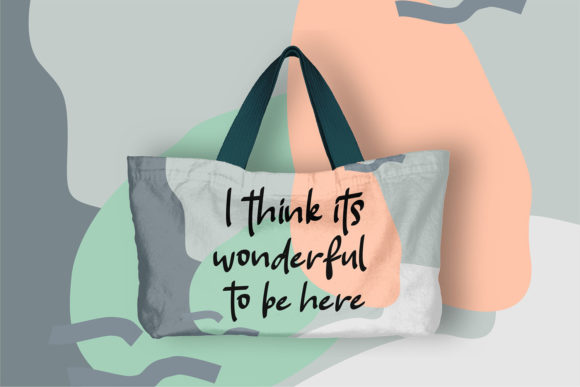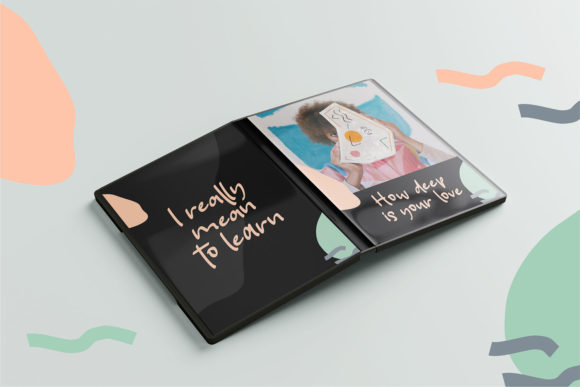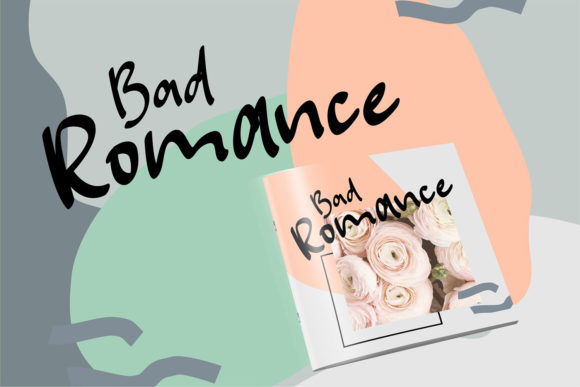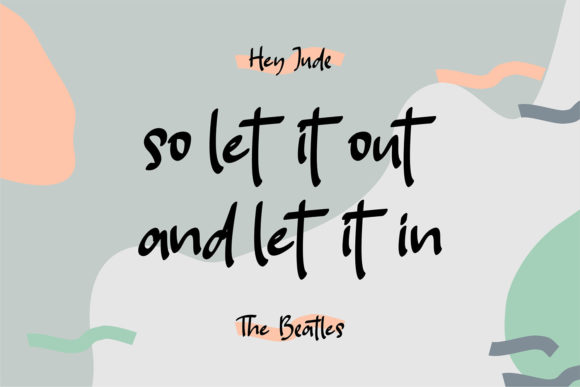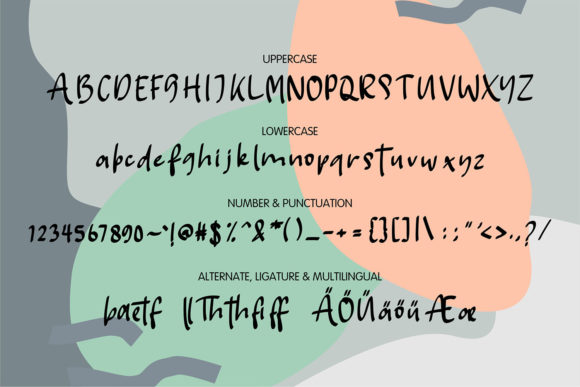
Introducing Chiang Mai Font: The Perfect Handwritten Font for Your Designs
Are you a designer or crafter looking for a unique and trendy font to elevate your projects? Look no further than Chiang Mai Font, a cute and neat handwritten font that’s perfect for a wide range of designs. With its natural and distinctive style, Chiang Mai Font is sure to make your creations stand out from the crowd.
What is Chiang Mai Font?
Chiang Mai Font is a carefully crafted handwritten font that’s inspired by the beauty of traditional Thai script. Its elegant and flowing lines make it perfect for use in a variety of design projects, from digital graphics and branding to crafting and DIY projects. Whether you’re creating invitations, greeting cards, or social media graphics, Chiang Mai Font is the perfect choice.
Key Features of Chiang Mai Font
- Cute and trendy design: Chiang Mai Font boasts a modern and stylish design that’s sure to appeal to designers and crafters of all ages.
- Natural and unique style: The font’s natural and distinctive style makes it incredibly fitting for a wide range of designs, from feminine and elegant to playful and whimsical.
- Neat and easy to read: Despite its handwritten nature, Chiang Mai Font is remarkably clear and easy to read, making it perfect for use in body text and headings.
- Highly versatile: Chiang Mai Font can be used in a wide range of design projects, from digital graphics and branding to crafting and DIY projects.
Uses for Chiang Mai Font
So, what can you use Chiang Mai Font for? The possibilities are endless! Here are just a few ideas to get you started:
- Digital graphics: Use Chiang Mai Font to create stunning social media graphics, blog headers, and other digital graphics that will grab attention and elevate your brand.
- Branding and packaging: Add a touch of elegance and sophistication to your branding and packaging with Chiang Mai Font.
- Crafting and DIY projects: Use Chiang Mai Font to create beautiful and unique handmade cards, invitations, and other craft projects.
- Stationery and invitations: Create gorgeous stationery, invitations, and greeting cards with Chiang Mai Font.
Why Choose Chiang Mai Font?
With so many fonts to choose from, why should you choose Chiang Mai Font? Here are just a few reasons:
- Unique and distinctive: Chiang Mai Font is a truly unique and distinctive font that will set your designs apart from the crowd.
- Elegant and sophisticated: The font’s elegant and sophisticated design makes it perfect for use in high-end branding and design projects.
- Easy to use: Chiang Mai Font is remarkably easy to use, even for those with limited design experience.
- High-quality: Chiang Mai Font is a high-quality font that’s been carefully crafted to ensure maximum clarity and legibility.
In conclusion, Chiang Mai Font is a beautiful and versatile handwritten font that’s perfect for designers and crafters of all levels. With its natural and unique style, Chiang Mai Font is sure to elevate your designs and help you create stunning projects that will grab attention and leave a lasting impression. So why wait? Try Chiang Mai Font today and see the difference it can make in your designs!